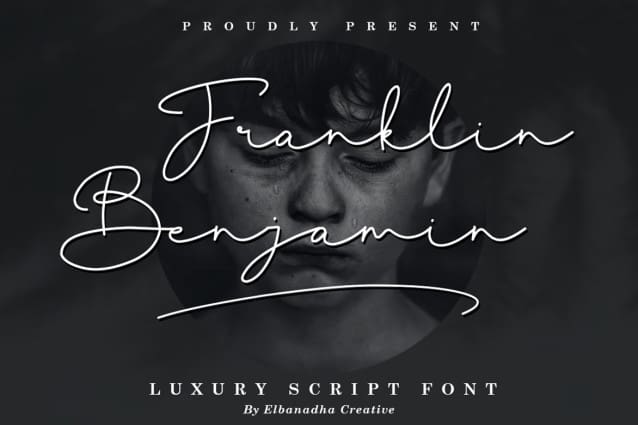
Franklin Benjamin Font
FRANKLIN BENJAMIN FONT – LUXURY SCRIPT FONT, from Elbanadha Creative, suitable for any projects such as: logos, branding projects, homeware designs, product packaging, mugs, quotes, posters, shopping bags, t-shirts, book covers, name card, invitation cards, greeting cards, label, photography, watermark, special events, and all your other lovely projects that need a beautiful taste.